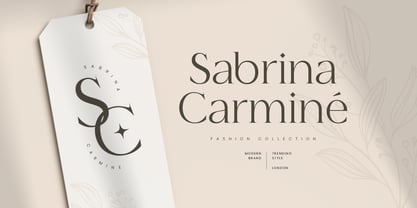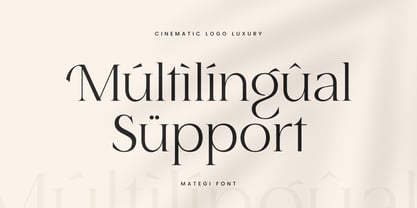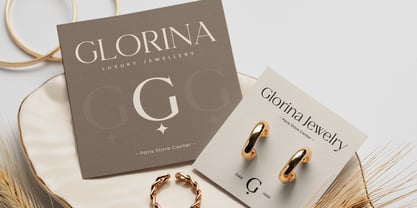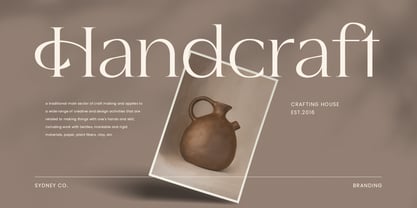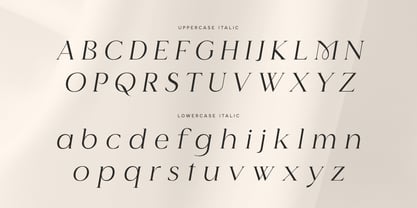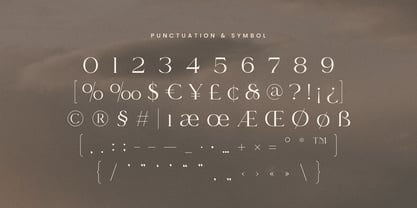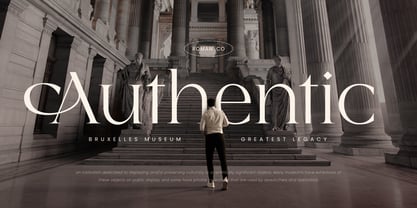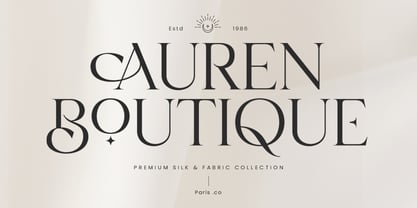
Mategi
von Sensatype Studio
Die Schriftfamilie Mategi wurde von Zamroni Hamzah entworfen und von Sensatype Studio veröffentlicht. Mategi enthält 2 Stile und Familienpaketoptionen. Mehr über diese Familie
Montage SS is a cinematic luxury font designed to bring elegance and sophistication to your high-end design projects. Inspired by the timeless beauty of classic cinema, Montage SS combines modern aesthetics with a touch of vintage glamour. Ideal for creating stunning logos and refined branding materials, this font is perfect for designers who want to make a bold statement with their work.
The Story Behind Montage:
Montage SS was born from a passion for the golden age of cinema, where every frame was crafted with care and attention to detail. This font captures that spirit, offering a blend of elegance and modernity that is sure to elevate any project. Whether you're designing for luxury brands, creating cinematic posters, or crafting stylish logos, Montage SS provides the perfect balance of sophistication and creativity.
Montage SS Font Features:
• Elegant Design: Perfect for luxury branding, cinematic posters, and high-end projects.
• Versatile Usage: Ideal for logos, branding, headlines, and stylish designs.
• High Legibility: Ensures your message is communicated effectively with clear and sharp lettering.
• Cinematic Appeal: Combines modern aesthetics with a vintage touch to create a unique and memorable look.
Perfect For:
• Luxury Branding: Create elegant and memorable logos for high-end brands and businesses.
• Cinematic Projects: Design eye-catching movie posters, title sequences, and promotional materials.
• Professional Materials: Develop stylish and sophisticated business cards, letterheads, and office stationery.
• Marketing and Advertising: Enhance brochures, advertisements, and digital campaigns with a touch of luxury.
Elevate your design projects with Montage SS and bring a touch of cinematic luxury to your work.
Designer: Zamroni Hamzah
Foundry: Sensatype Studio